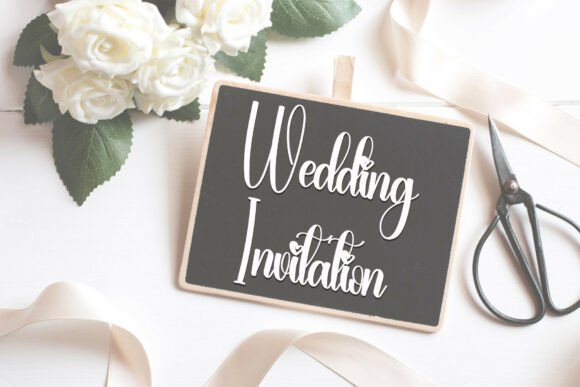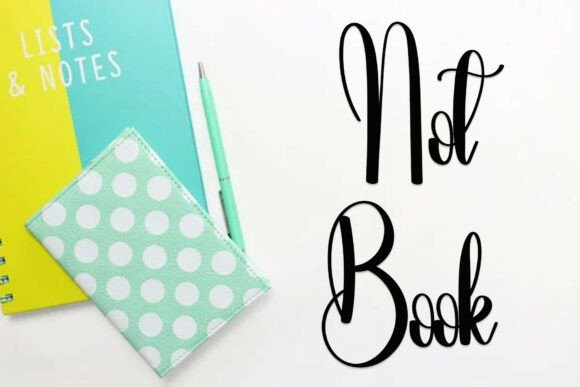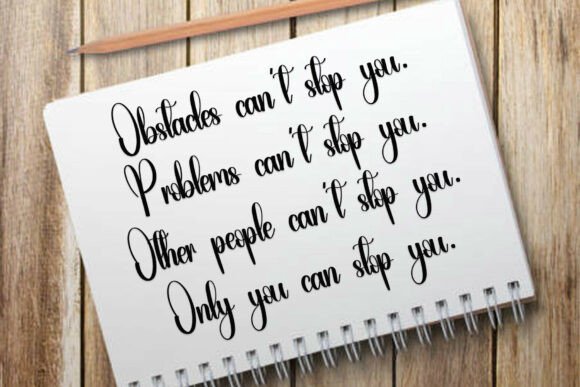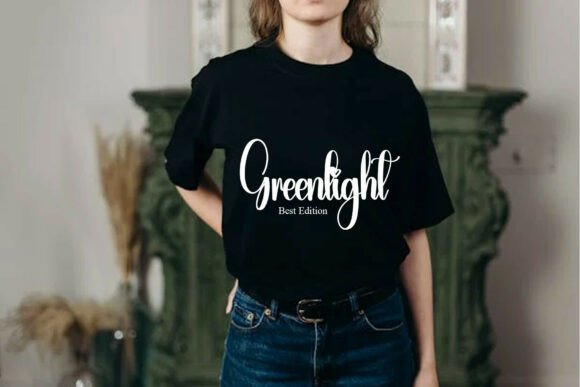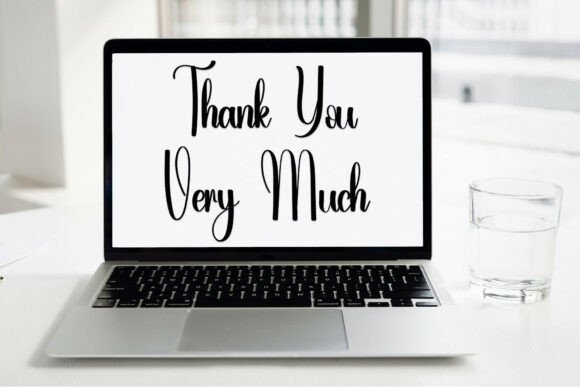
Introduction to Lighting Christmas Font
As the holiday season approaches, designers often find themselves searching for the perfect typography to capture the magic of the season. It’s that moment of inspiration, when browsing through fonts, that you stumble upon the perfect match – the Lighting Christmas Font. Its elegant, sweeping strokes and tiny heart accents nestled near the connections immediately evoke the enchanting glow of the festive season.
The Lighting Christmas Font is a stunning Modern Handwritten Font that has been designed to add a touch of sophistication and romance to any creative project. With its high contrast against a dark, moody background, it’s perfect for luxurious Christmas cards, upscale winter event invitations, and premium product tags. As a valuable design resource, this font offers a high-quality solution for designers looking to create stunning holiday messages.
Key Features of Lighting Christmas Font
- High-quality design resource ideal for creative projects, such as holiday greeting cards, posters, and social media graphics.
- Unique, festive design featuring a lighting Christmas theme, perfect for adding a touch of holiday cheer to your designs.
- Transparent background allows for easy layering and customization to fit your design needs.
Honest Review: Lighting Christmas Font
As a designer, I’m always on the lookout for high-quality design resources to elevate my creative projects. The Lighting Christmas Font has been a valuable addition to my toolkit.
- ✨ High-quality design that’s perfect for holiday-themed projects
- ✨ Transparent background for easy layering and combination
How to Use Lighting Christmas Font
For the best results, use the Lighting Christmas Font in conjunction with other high-quality design elements, such as graphics and images. Experiment with different font sizes, colors, and styles to create a unique and eye-catching design.
The Lighting Christmas Font is perfect for a variety of creative projects, including holiday cards, gift tags, and social media graphics. You can also use it to create a festive logo or branding for your business or event.